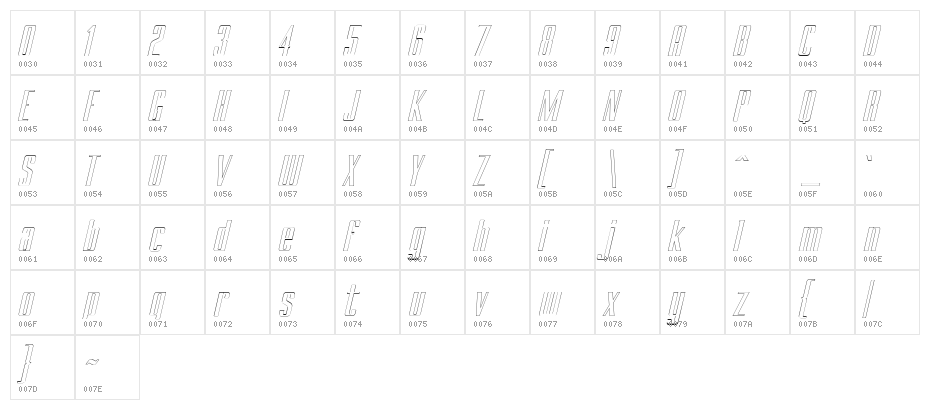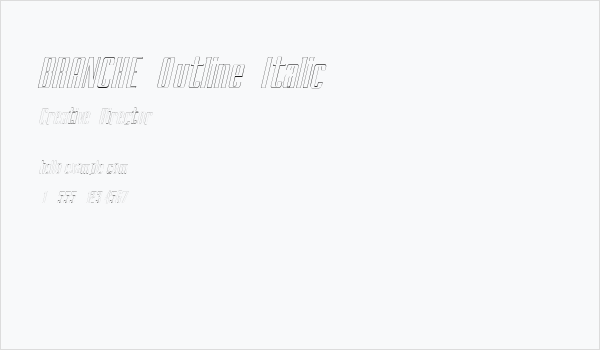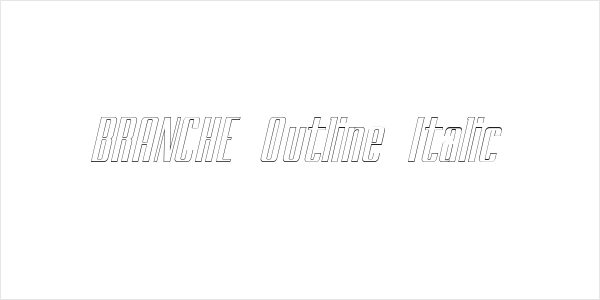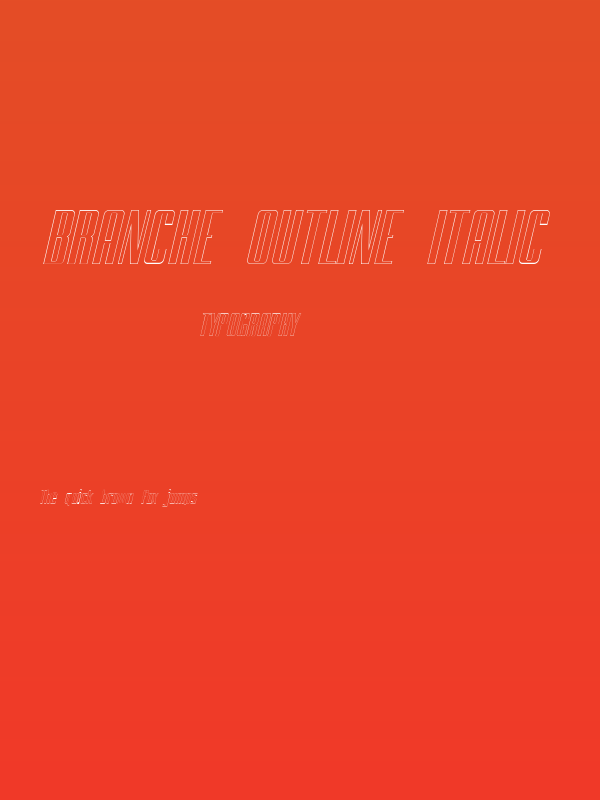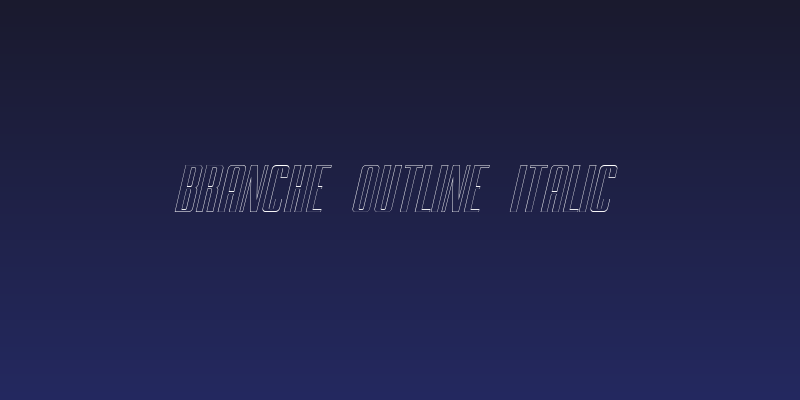
BRANCHE Outline Italic Font
BRANCHE Outline Italic Description
This font features a sleek, modern outline style with a distinct italic slant, giving it a dynamic and forward-moving appearance. The characters are elongated and narrow, emphasizing verticality and elegance. The outline design provides a sense of openness and lightness, making it suitable for creative and contemporary projects. The uppercase and lowercase letters maintain a consistent style, while the numerals and special characters complement the overall aesthetic. This font's unique outline and italic characteristics make it stand out, offering a stylish and sophisticated look.
| Proposed Projects | Ideal for branding, posters, headlines, and modern design projects. |